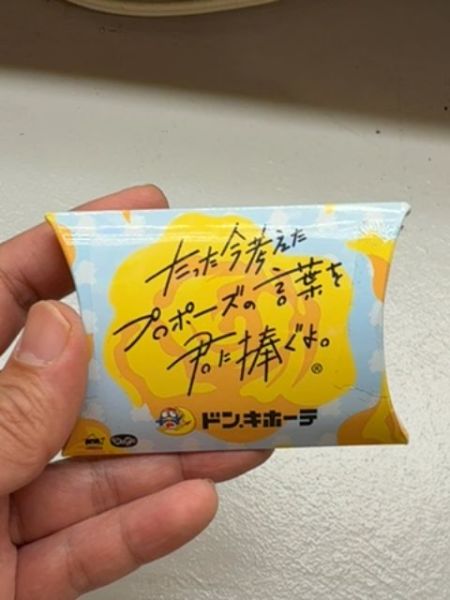
Don Quijote Product
This is a novelty product sold by the Japanese discount retail chain Don Quijote, known for its diverse range of goods.
The main typography on the package uses a handwritten, casual script, giving it an approachable and quirky feel. The font contrasts with bolder, block-style Japanese characters below, which are more formal and aligned, adding a structured element.
The packaging is compact and pillow-shaped, ideal for small novelty items. It features a playful yellow and blue color scheme with a cartoon penguin mascot.